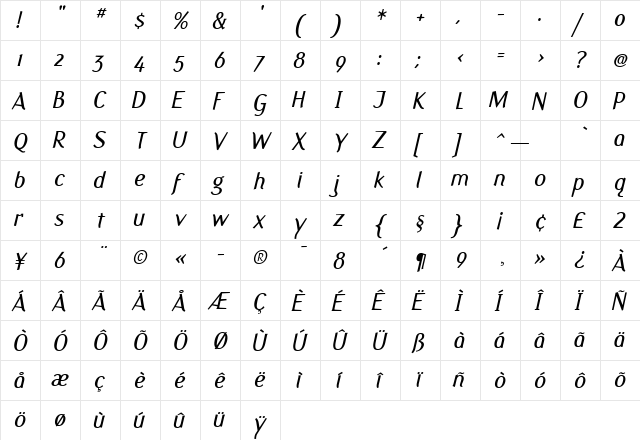
Fasciani-Senza Italic
Design Context for Fasciani-Senza Typeface
Fasciani-Senza takes a measured approach to typography — its balanced proportions and neutral character make it a reliable workhorse for both digital and print work. The dynamic lean of this cut emphasises speed and emphasis in any layout.